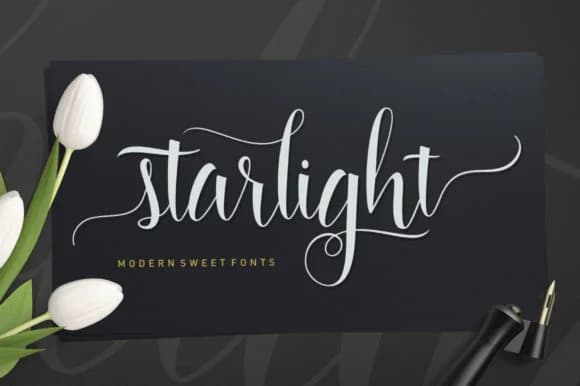
1 / 8About Starlight Script Font
Starlight Script by Stripes Studio is a contemporary handwritten font that brings organic elegance to digital projects. This script captures the fluidity of pen-on-paper lettering while maintaining the clean precision needed for modern applications. The font's balanced weight and natural flow make it an excellent choice for creative professionals seeking authentic hand-drawn aesthetics without sacrificing legibility.
This versatile typeface shines in wedding invitation suites, where its graceful letterforms add a personal touch to ceremony stationery and thank-you cards. It works equally well for luxury cosmetics branding and artisanal product labels, lending sophistication to packaging design. For those creating custom event signage or personalized merchandise like engraved mugs and wooden signs, Starlight Script delivers character that feels both contemporary and timeless. Social media graphics and personal brand identities also benefit from its approachable yet refined appearance.
The font's thoughtful construction ensures readability across various applications, from print materials to digital displays. Its carefully crafted letterforms work harmoniously together, making it suitable for headlines, body text in short formats, and decorative applications. Whether you're designing for small business ventures or personal creative projects, Starlight Script provides the handcrafted quality that resonates with modern audiences. Add this elegant script to your design toolkit and discover how it transforms your creative vision on Creative Fabrica.
Starlight Script Font is a script font that shines as a display or heading face. Pair it with a clean sans-serif or serif font for body text β the contrast creates a clear hierarchy while the two styles stay balanced and easy to read.